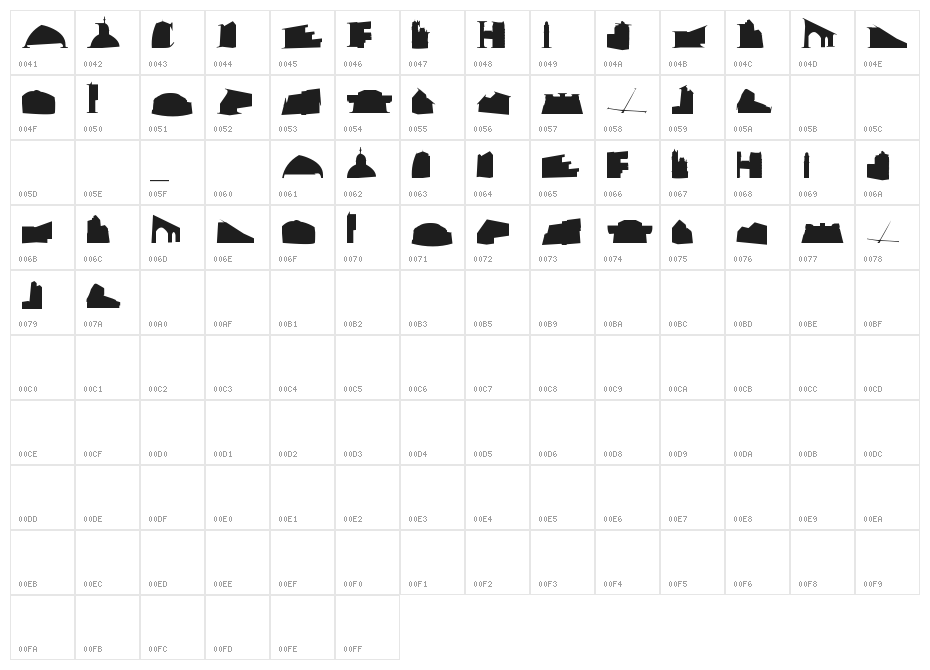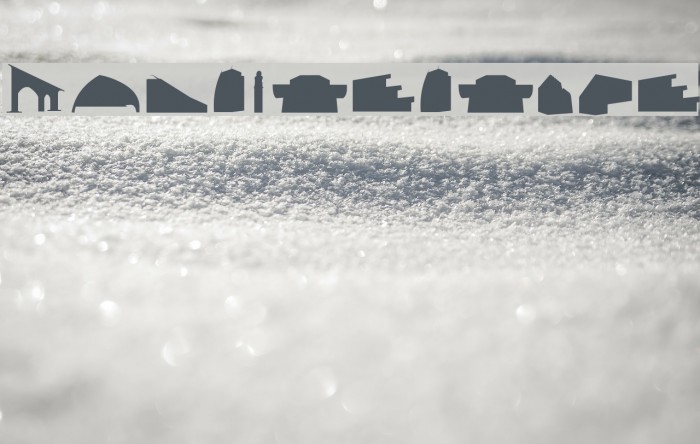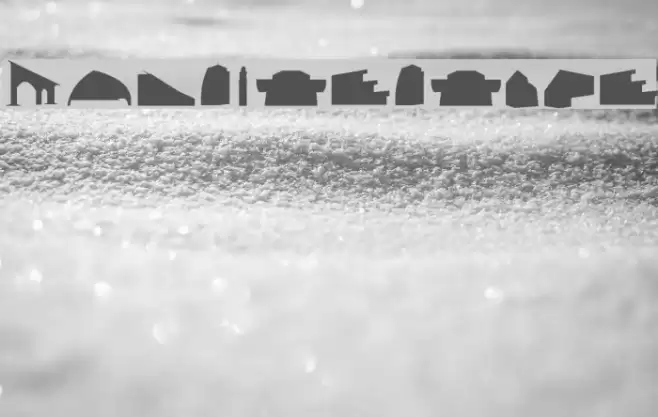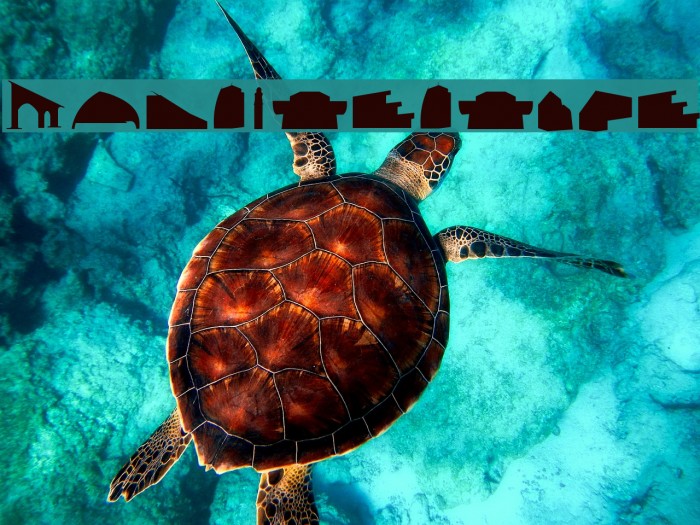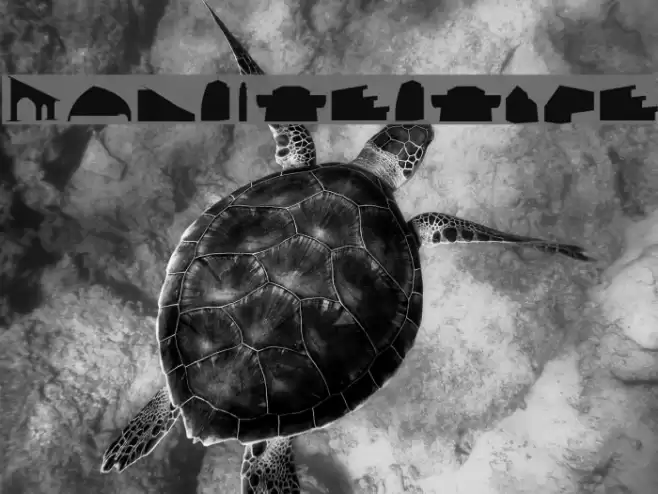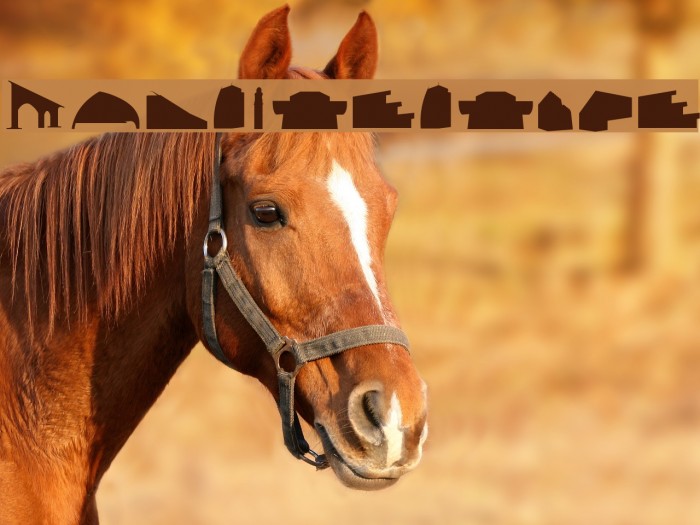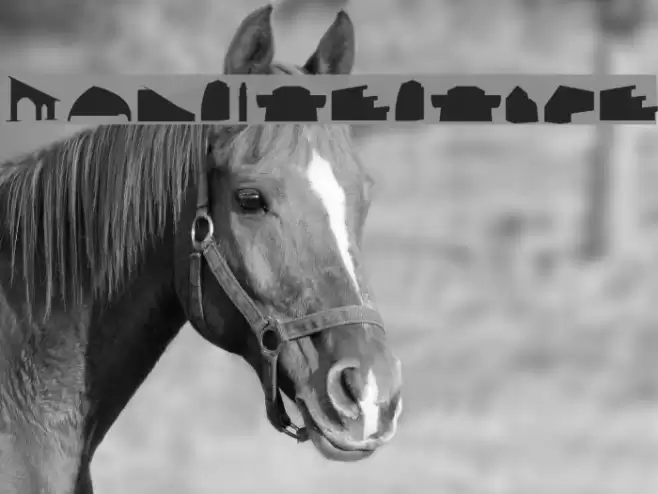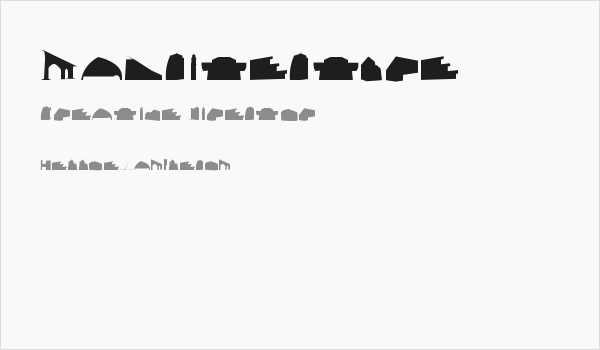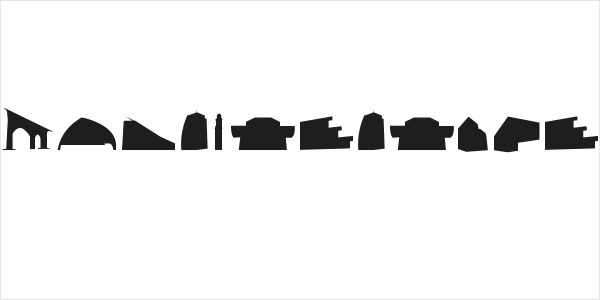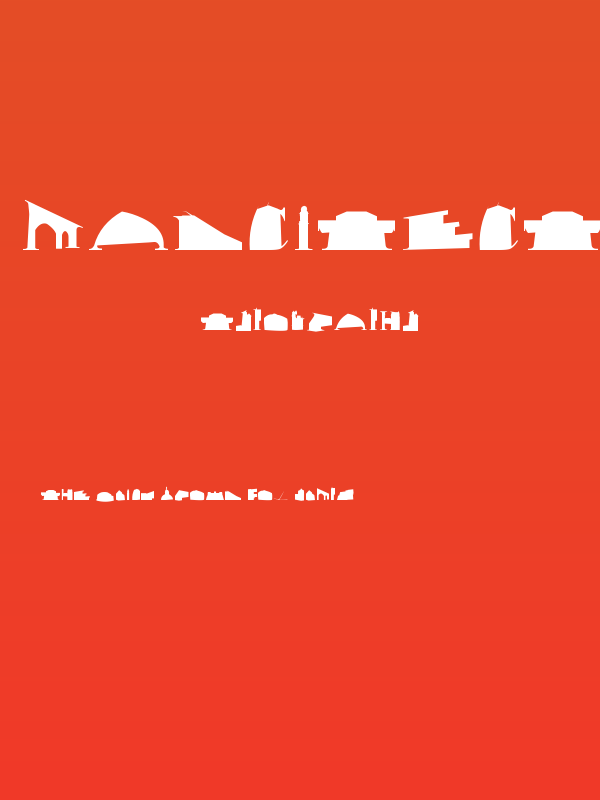
Mancitecture Font
Mancitecture Description
This unique typeface is composed of silhouettes of architectural structures, each letter representing a distinct building or monument. The design is bold and striking, with each character crafted to resemble a recognizable architectural form. The font's style is highly decorative, making it ideal for projects that require a strong visual impact. Its intricate details and creative concept make it stand out as a display typeface, perfect for capturing attention and conveying a sense of sophistication and creativity.
| Proposed Projects | Ideal for architectural magazines, event posters, branding for construction companies, or any project that seeks to incorporate architectural themes. |